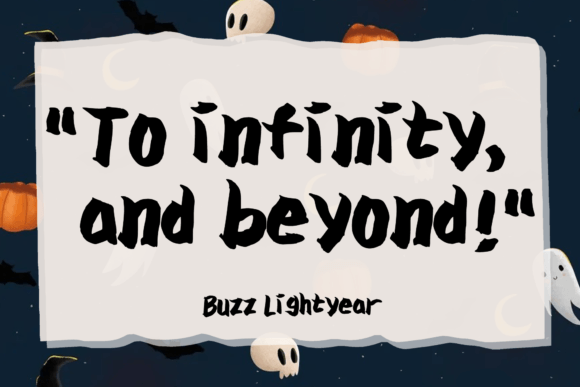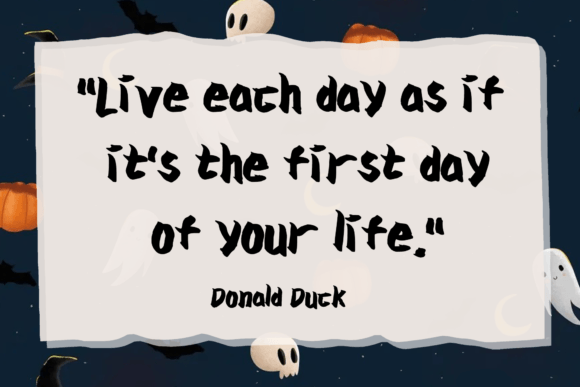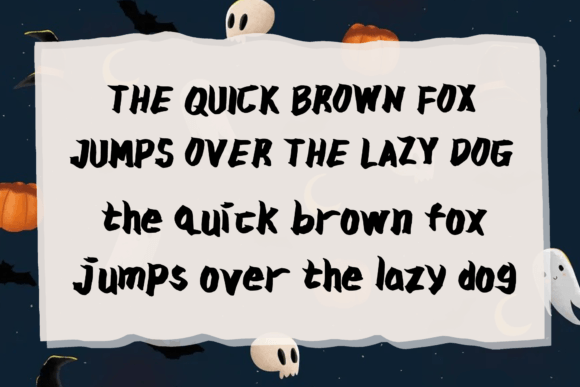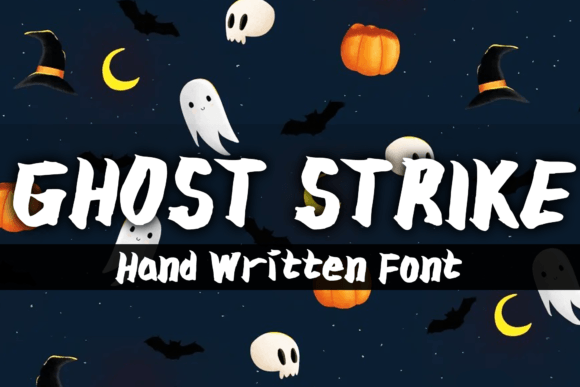
Introducing Ghost Strike Font: The Quirky Halloween-Themed Handwritten Font
Are you looking for a font that adds a touch of spooky charm to your designs? Look no further than Ghost Strike Font! This quirky, Halloween-themed handwritten font is perfect for creating a wide range of designs, from greeting cards to stickers and posters. With its incredibly versatile style, Ghost Strike Font is sure to fall into your heart and become a staple in your design collection.
What Makes Ghost Strike Font So Special?
Ghost Strike Font is a one-of-a-kind font that boasts a unique and playful style. Its handwritten design gives it a personal and casual touch, making it perfect for designs that need a bit of whimsy. The font’s quirky and spooky vibe makes it ideal for Halloween-themed designs, but its versatility also allows it to be used for a wide range of other projects.
Uses for Ghost Strike Font
Ghost Strike Font can be used for a variety of design projects, including:
- Greeting Cards: Add a touch of spooky charm to your Halloween greeting cards with Ghost Strike Font. You can use it to create custom cards for friends and family, or to design greeting cards for sale.
- Stickers: Create custom stickers with Ghost Strike Font that are perfect for decorating laptops, water bottles, and more.
- Posters: Design eye-catching posters with Ghost Strike Font that are perfect for promoting Halloween events or parties.
- Social Media Graphics: Use Ghost Strike Font to create social media graphics that are sure to stand out. You can use it to design custom Facebook and Twitter headers, Instagram graphics, and more.
Why Designers and Crafters Love Ghost Strike Font
Ghost Strike Font has quickly become a favorite among designers and crafters, and for good reason. Here are just a few reasons why:
- Versatility: Ghost Strike Font is incredibly versatile, making it perfect for a wide range of design projects.
- Easy to Read: Despite its quirky style, Ghost Strike Font is easy to read, making it perfect for designs that need to convey a message.
- Unique Style: Ghost Strike Font has a unique and playful style that sets it apart from other fonts.
Tips for Using Ghost Strike Font
Here are a few tips for getting the most out of Ghost Strike Font:
- Experiment with Colors: Ghost Strike Font looks great in a variety of colors, so don’t be afraid to experiment and find the perfect color scheme for your design.
- Pair it with Other Fonts: Ghost Strike Font pairs well with a variety of other fonts, so try pairing it with a bold font for a striking contrast.
- Use it for Headlines: Ghost Strike Font is perfect for headlines and titles, so try using it to add a touch of spooky charm to your design.
Ghost Strike Font is a quirky and versatile font that’s perfect for designers and crafters looking to add a touch of spooky charm to their designs. With its unique style and easy-to-read design, Ghost Strike Font is sure to become a staple in your design collection. So why wait? Download Ghost Strike Font today and start creating your own spooky and fun designs!